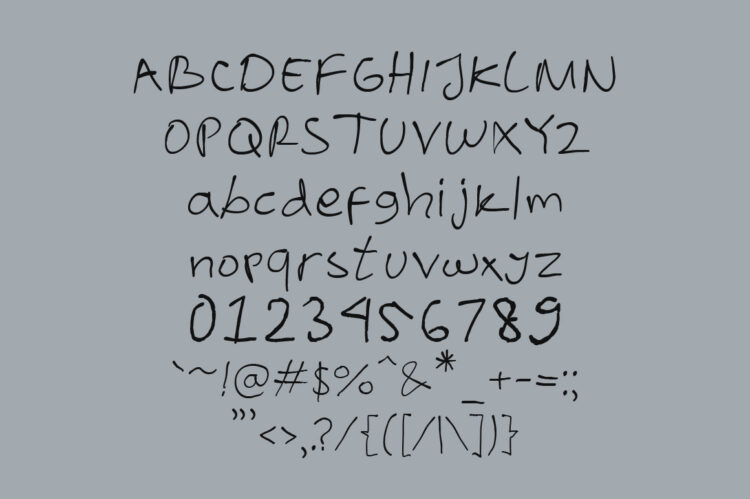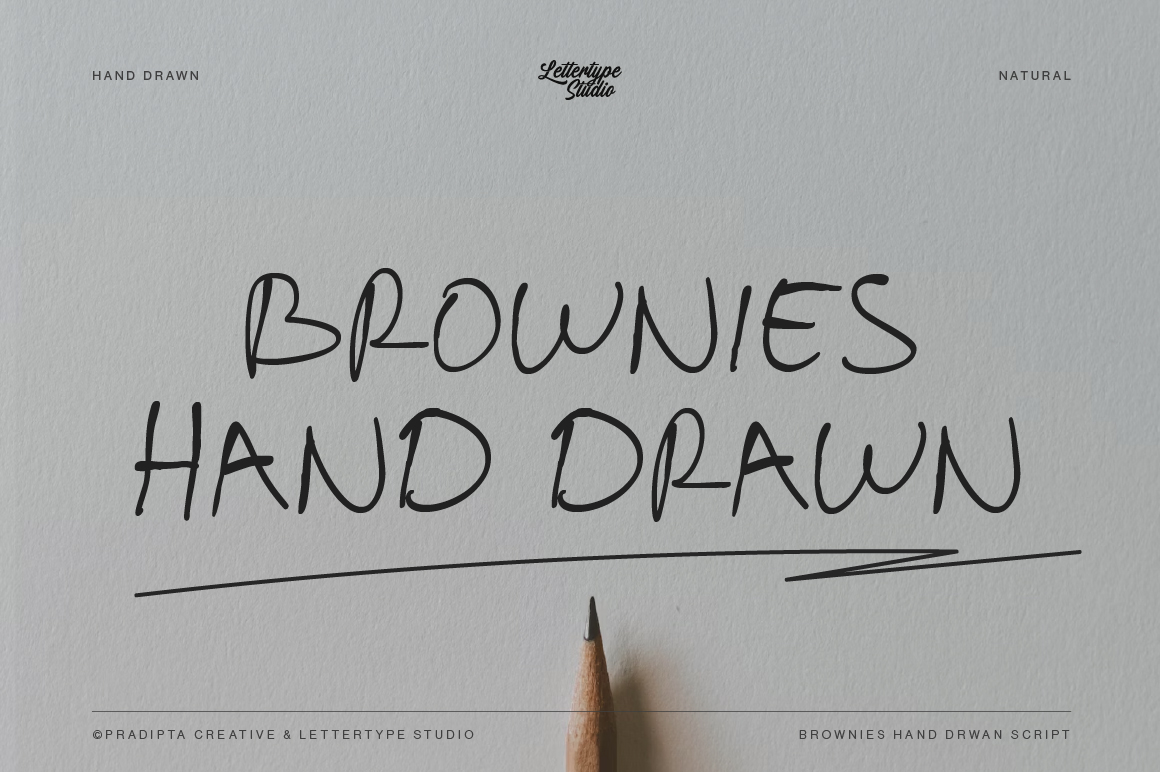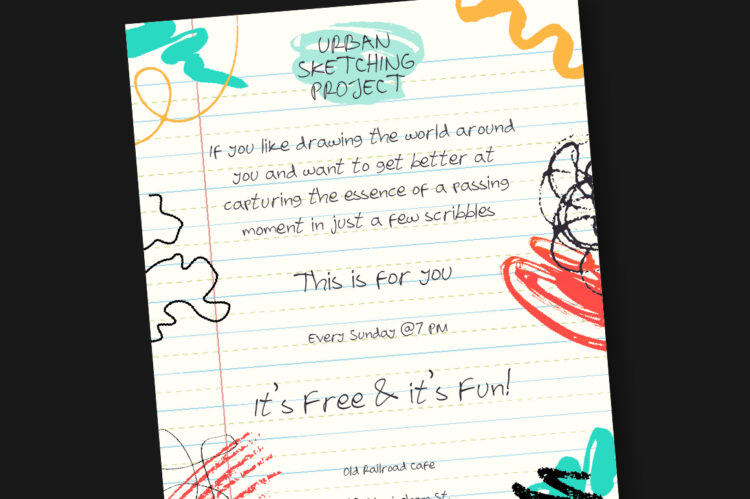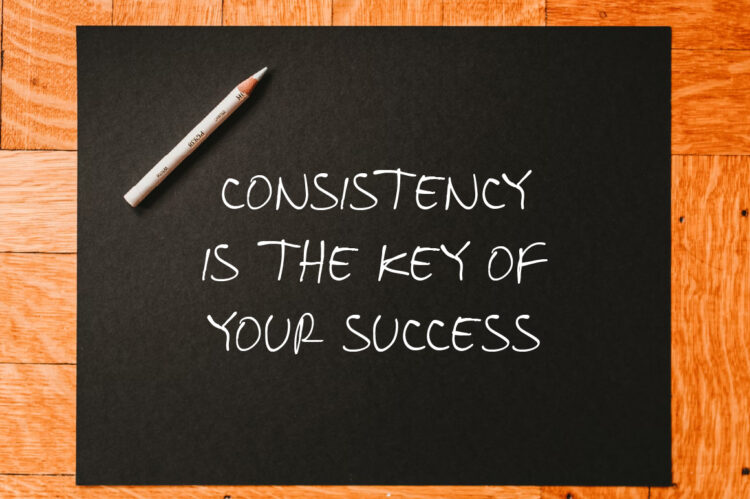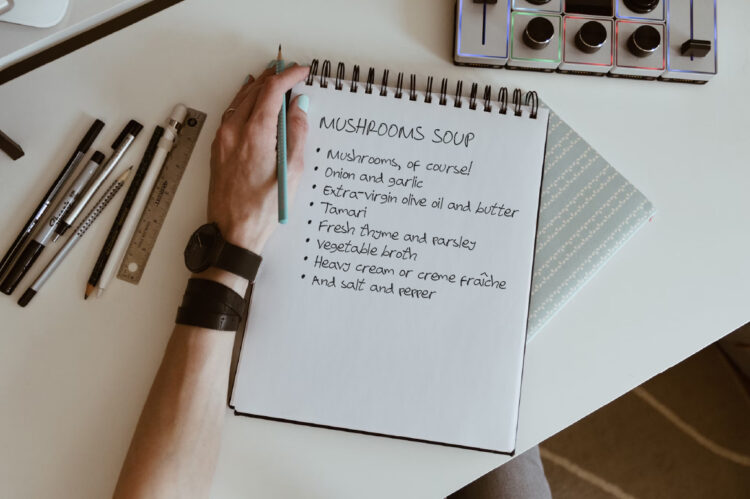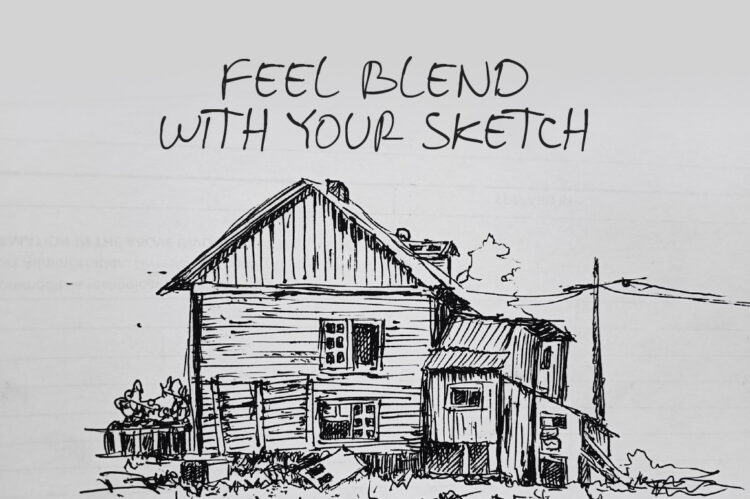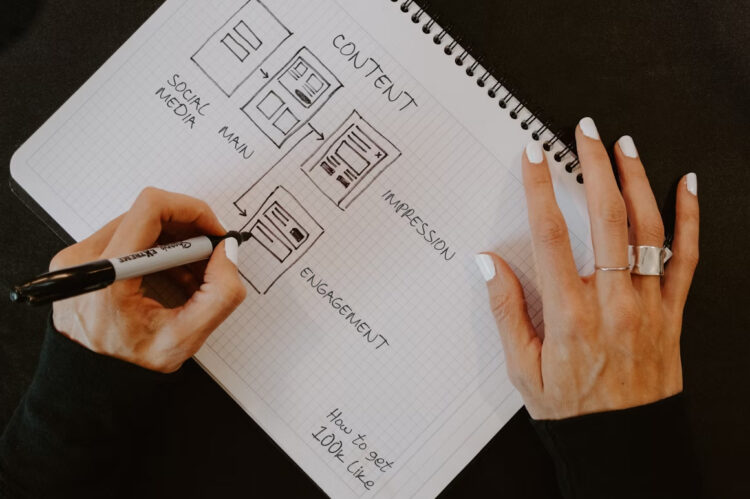
Brownies Handdrawn
Brownies Handdrawn is a script handwriting fonts that seamlessly blend natural, bold, and quote-worthy styles, perfect for adding a personal touch to your designs. These typefaces emulate authentic handwriting, offering a spectrum from delicate swashes to robust strokes, ideal for branding, invitations, and expressive typography.
• Handwritten logos, personal branding & quotes
• Wedding invitations, greeting cards & stationery
• Packaging, labels & handmade product design
• Social media posts, lifestyle graphics & lettering art
• Posters, journals & creative note-style projects